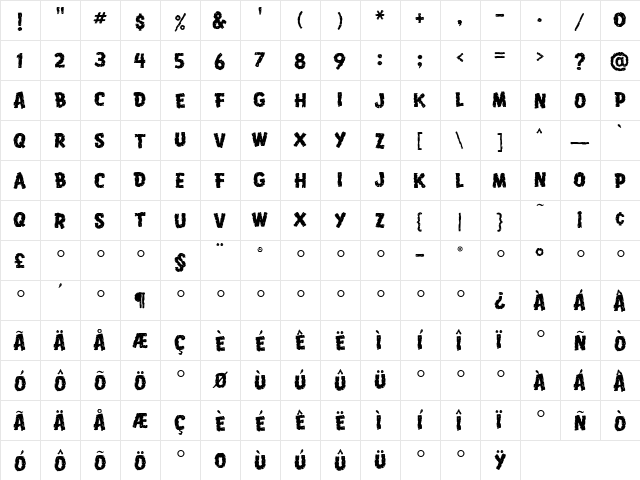
VoodooHouse Medium Font Preview
VoodooHouse Medium
VoodooHouse Medium Font Details
Design Context for VoodooHouse Typeface
VoodooHouse is a composed and adaptable typeface that performs quietly and consistently across a wide range of design contexts.